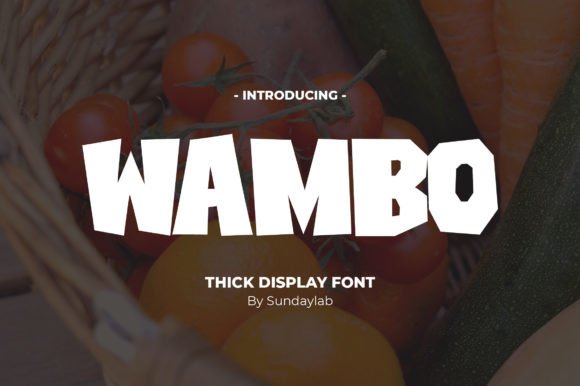
Introducing Wambo Font: The Bold and Expressive Display Font for Unforgettable Designs
Prepare to unleash your creativity with Wambo, the audacious display font that commands attention and leaves a lasting impression. Designed by the talented team at Sundaylab, Wambo is not just a font; it's an artistic statement that transforms your words into visually stunning masterpieces.
Immerse yourself in the world of Wambo, a realm where boldness and confidence reign supreme. Its thick strokes and sharp edges exude an aura of authority and power, making it the perfect choice for headlines that demand attention. Picture your designs adorned with Wambo's captivating presence, drawing the eyes of your audience like a magnet.
With Wambo, you're not just crafting designs; you're creating experiences. Its carefully crafted glyphs and effortless swashes, accessible through PUA encoding, unleash a universe of creative possibilities. Unleash your imagination and let Wambo guide you to typographic heights you never thought possible.
Wambo is more than just a font; it's a catalyst for your creative genius. Its versatility knows no bounds, seamlessly adapting to a myriad of design projects. From eye-catching posters that speak volumes to vibrant logos that leave an indelible mark, Wambo is your trusted companion in the realm of visual communication.
Join the creative revolution and embrace the power of Wambo. Let its bold strokes ignite your passion and transform your designs into captivating works of art. Experience the thrill of typography like never before and unleash the boundless potential within you.